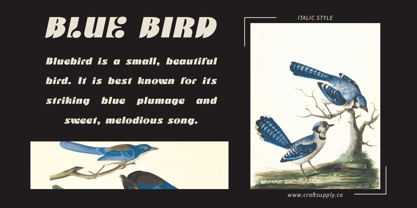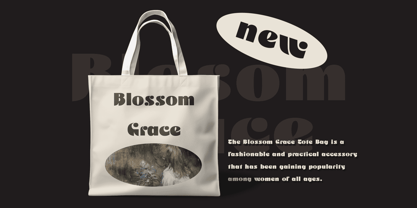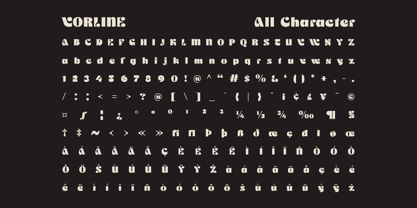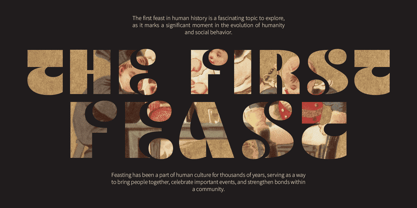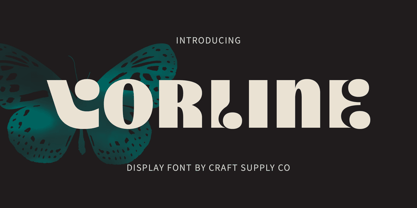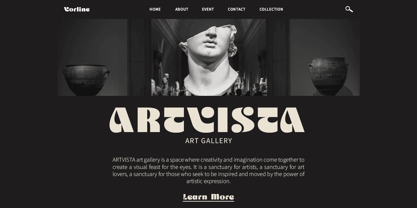
Vorline
by Craft Supply Co
The Vorline Font Family was designed by Trio Nazzar Saputra, Wahyu Hadi Yuana and published by Craft Supply Co. Vorline contains 2 styles and family package options. More about this family
Vorline: Bold Funky Vibes Bold Display Design Vorline boasts a bold display design that grabs attention with its striking presence. Each character exudes confidence and adds a touch of boldness to your projects. Funky Retro Inspiration Drawing inspiration from retro vibes, This font infuses a funky essence into your designs. Its playful yet retro-inspired aesthetic brings a sense of nostalgia and fun to any project. Versatile Application Whether you’re designing posters, logos, headlines, or branding materials, This font offers versatility in its application. Its bold and funky style adds flair and personality to any design endeavor. Eye-Catching Retro Appeal With its bold design and retro-inspired vibes, This font ensures that your designs stand out from the crowd. Its eye-catching appeal adds a touch of nostalgia and fun to any visual project. Boldness with Retro Flair This font combines boldness with retro flair to deliver a font that commands attention and adds personality to your designs. Its funky vibes and versatile application make it an ideal choice for designers seeking to infuse their projects with bold, retro-inspired charm.
Designers: Trio Nazzar Saputra, Wahyu Hadi Yuana
Foundry: Craft Supply Co